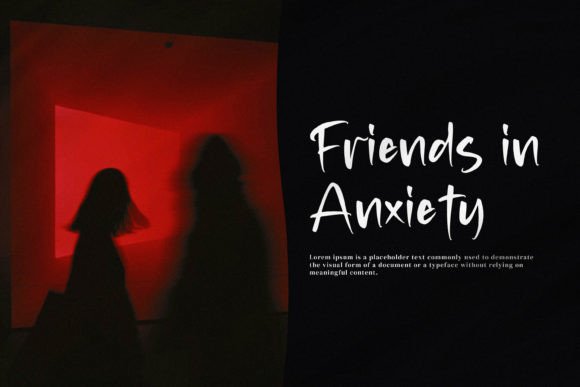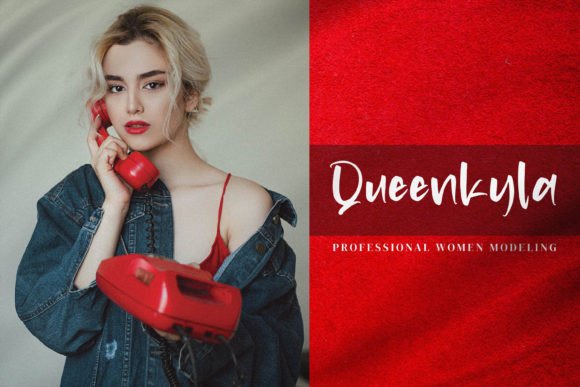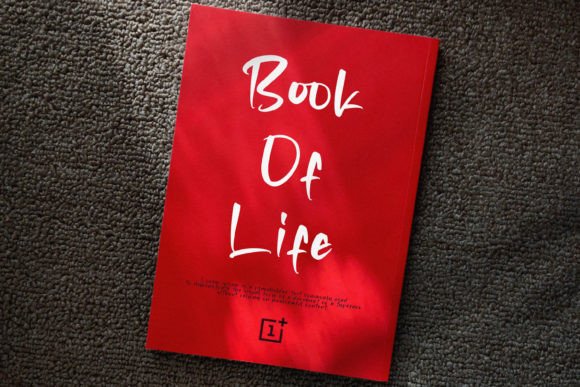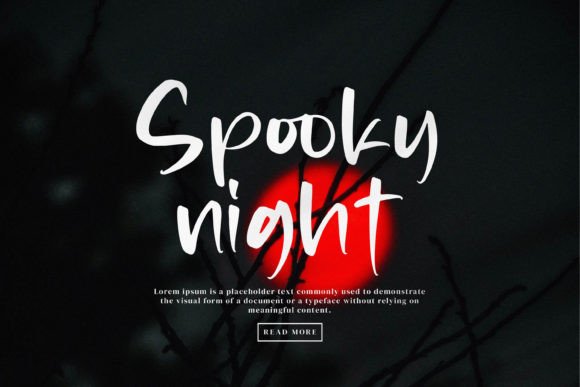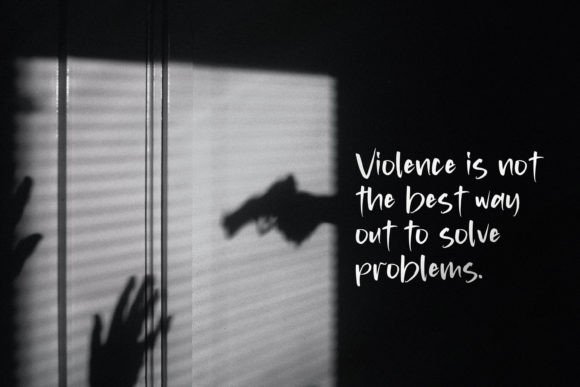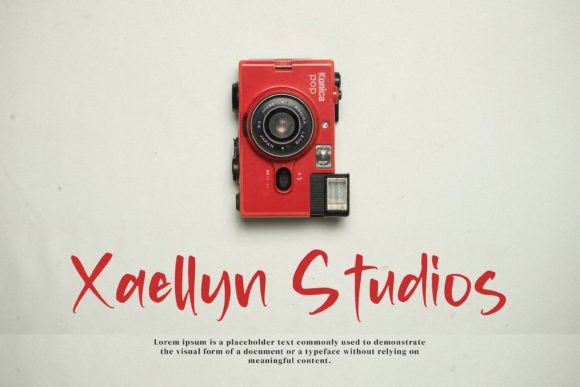
Introducing Ausvika Font: Elevate Your Designs with Elegance and Sophistication
In the world of typography, a font can make or break a design. For designers and crafters seeking to add a touch of class and sophistication to their work, Ausvika Font is an exceptional choice. This beautiful and refined script font is designed to bring a modern, elegant, and classy look to various design projects, making it a versatile tool for creatives.
What is Ausvika Font?
Ausvika Font is a stunning script typeface that exudes elegance and refinement. Its flowing lines and curves are meticulously crafted to give designs a luxurious feel, perfect for projects that demand a high level of sophistication. Whether you’re working on logos, branding materials, invitations, stationery, wedding designs, or social media posts, Ausvika Font is sure to make your work stand out.
Key Features of Ausvika Font
- Classy and Elegant: Ausvika Font boasts a classic, sophisticated look that adds a touch of luxury to any design.
- Modern Appeal: Despite its timeless elegance, Ausvika Font also has a modern edge, making it suitable for contemporary design projects.
- Versatile: This font can be used across a wide range of applications, from traditional print designs to digital media.
- Easy to Read: Ausvika Font is not only beautiful but also highly legible, ensuring your message is conveyed clearly and effectively.
Use Cases for Ausvika Font
Ausvika Font’s versatility makes it an excellent choice for various design projects. Here are some of the top use cases:
- Logos and Branding: Create a lasting impression with a logo that embodies elegance and sophistication.
- Invitations and Stationery: Add a touch of class to your invitations, business cards, and letterheads.
- Wedding Designs: Make your wedding stationery, programs, and decor truly unforgettable with Ausvika Font.
- Social Media Posts: Elevate your social media presence with stylish and engaging posts.
- Advertising and Marketing: Use Ausvika Font in your ad campaigns to convey luxury and exclusivity.
Why Choose Ausvika Font?
In a sea of fonts, Ausvika stands out for its unique blend of elegance, modernity, and versatility. Here are a few reasons why designers and crafters are gravitating towards Ausvika Font:
- Unique Design: Ausvika Font offers a distinctive look that can help your designs stand out from the crowd.
- Time-Saving: With Ausvika Font, you can achieve professional-looking results quickly and efficiently.
- Support for Various Languages: Ausvika Font supports multiple languages, making it a great choice for global brands and projects.
Tips for Using Ausvika Font Effectively
To get the most out of Ausvika Font, consider the following tips:
- Pair with Complementary Fonts: Combine Ausvika Font with simpler fonts to create visual interest and hierarchy in your designs.
- Adjust Letter Spacing: Fine-tune the letter spacing to ensure optimal readability and aesthetic appeal.
- Experiment with Colors: Ausvika Font looks stunning in various colors, so don’t be afraid to experiment and find the perfect shade for your design.
Ausvika Font is a game-changer for designers and crafters looking to infuse their work with elegance, sophistication, and a modern edge. Its versatility, beauty, and readability make it an excellent choice for a wide range of design projects. By incorporating Ausvika Font into your toolkit, you’ll be able to create stunning designs that leave a lasting impression.
Whether you’re a seasoned designer or just starting out, Ausvika Font is sure to inspire your creativity and help you achieve professional-looking results. So why wait? Explore the possibilities of Ausvika Font today and take your designs to the next level!